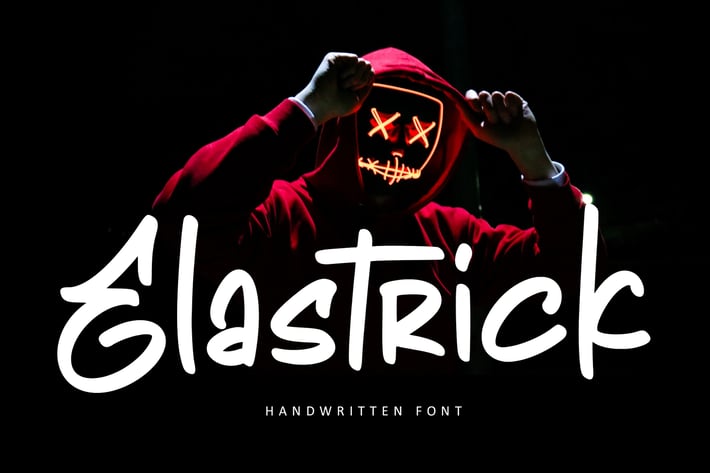
Elastric Logotype Font
Ellastrick is a refined and adaptable handwritten font. Its distinct and well rounded letters make this font a work of art. Fall in love with its incredibly versatile style and use it to create fashionable designs.